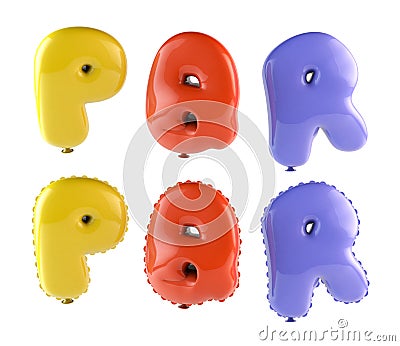
Alphabet Ballons Letters P, Q, R, 3d Rendering, Font Colorful Royalty-Free Stock Photography
Alphabet Ballons letters P, Q, R, 3d rendering, font colorful #202558697
Alphabet Ballons letters P, Q, R, 3d rendering, font colorful diversity.